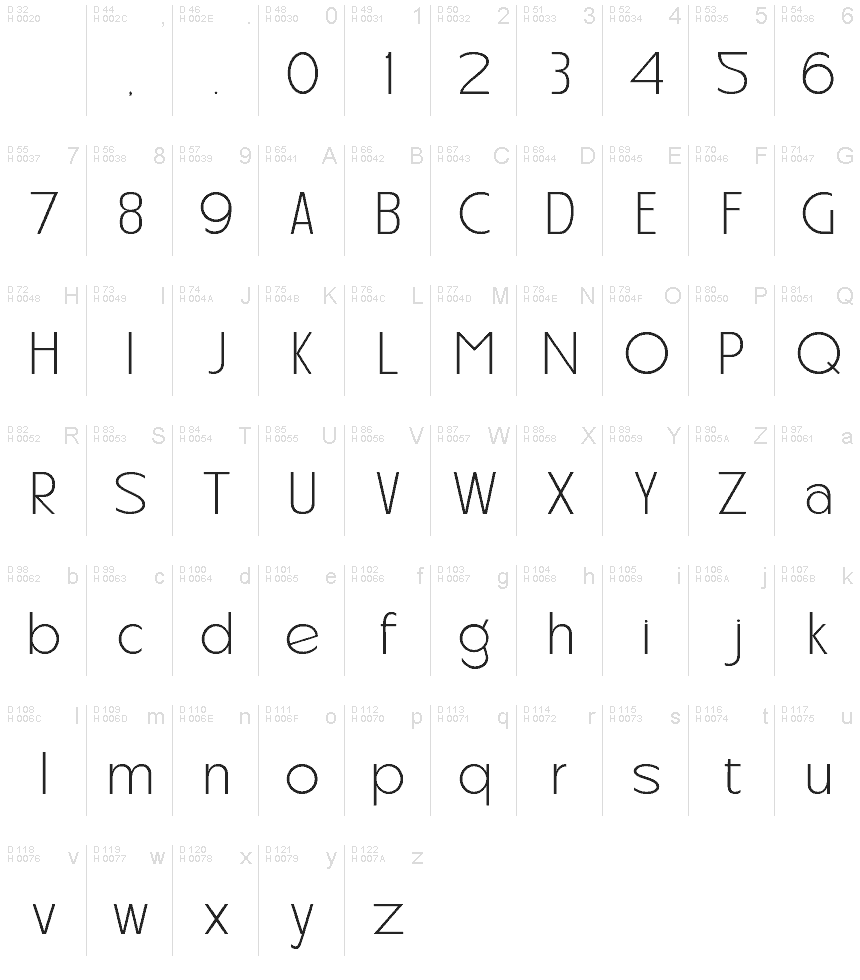
Carltine Extra Light
Carltine Extra Light font by Muksal Creative is a geometric minimalist sans serif typeface. The letters feature a clean aesthetic with a modern and elegant look ultimately forming a professional streamlined design. This light font carries an overwhelming sense of subtlety, purity, charm, and character.